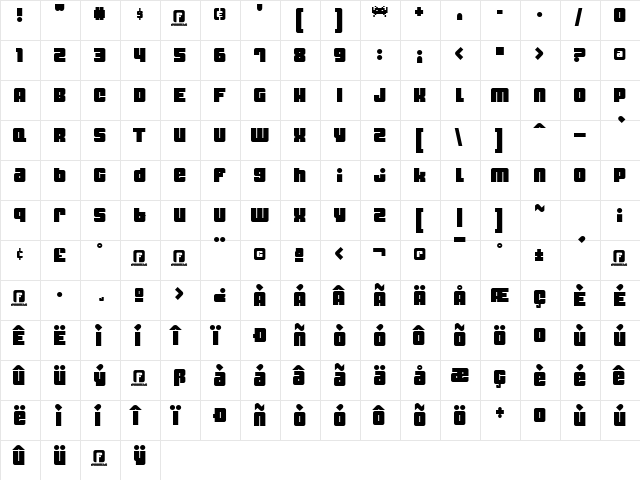
Dynomite Regular Font Preview
Dynomite Regular
Design Context for Dynomite Typeface
Dynomite is a composed and adaptable typeface that performs quietly and consistently across a wide range of design contexts.